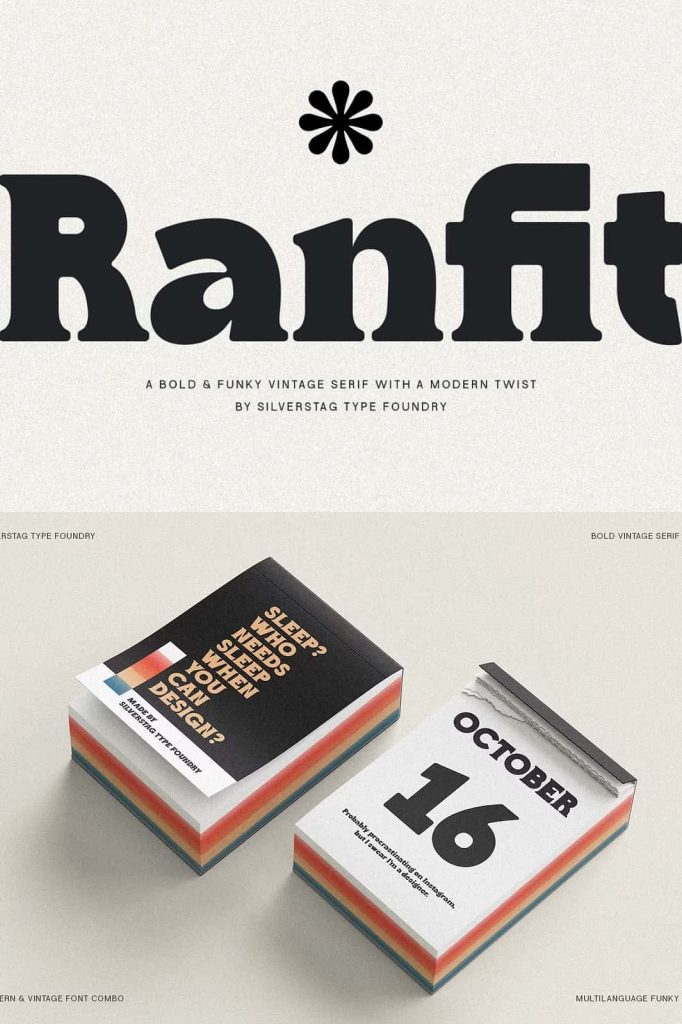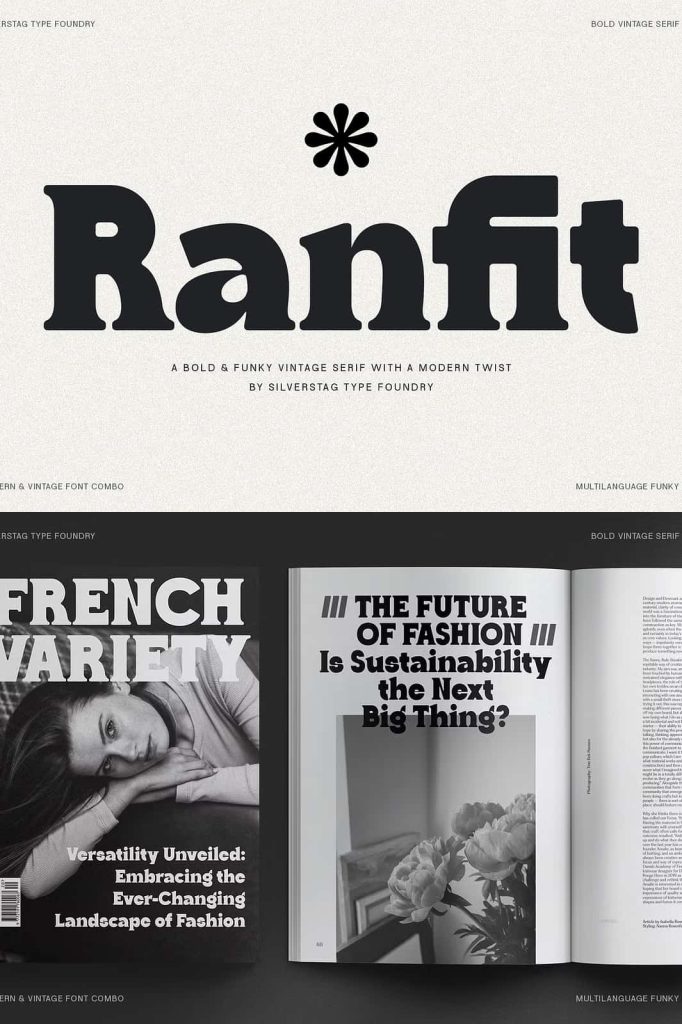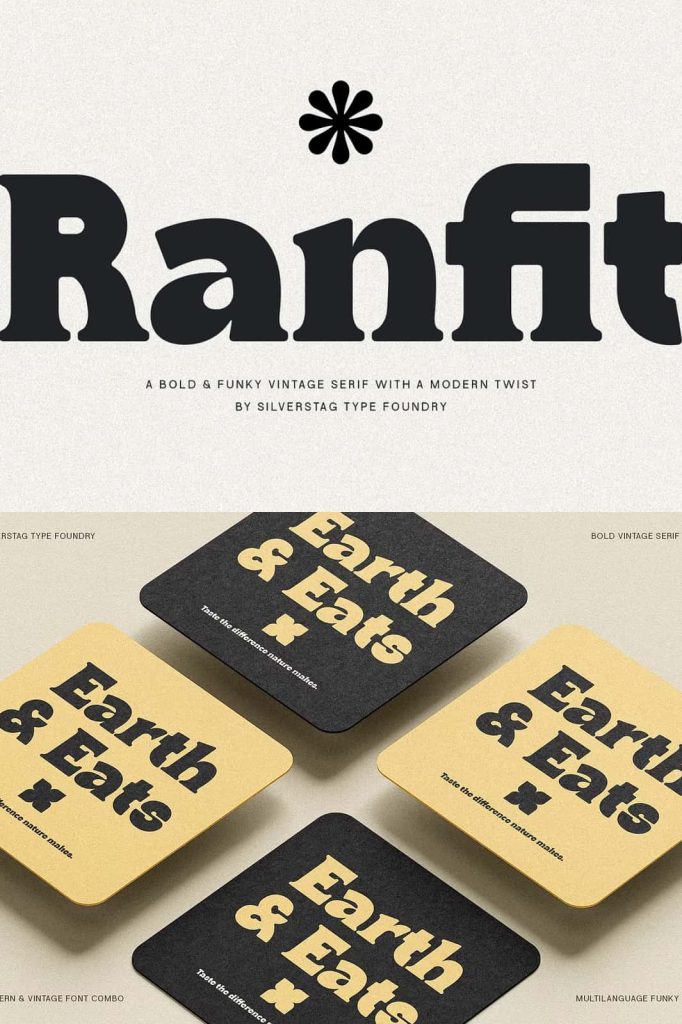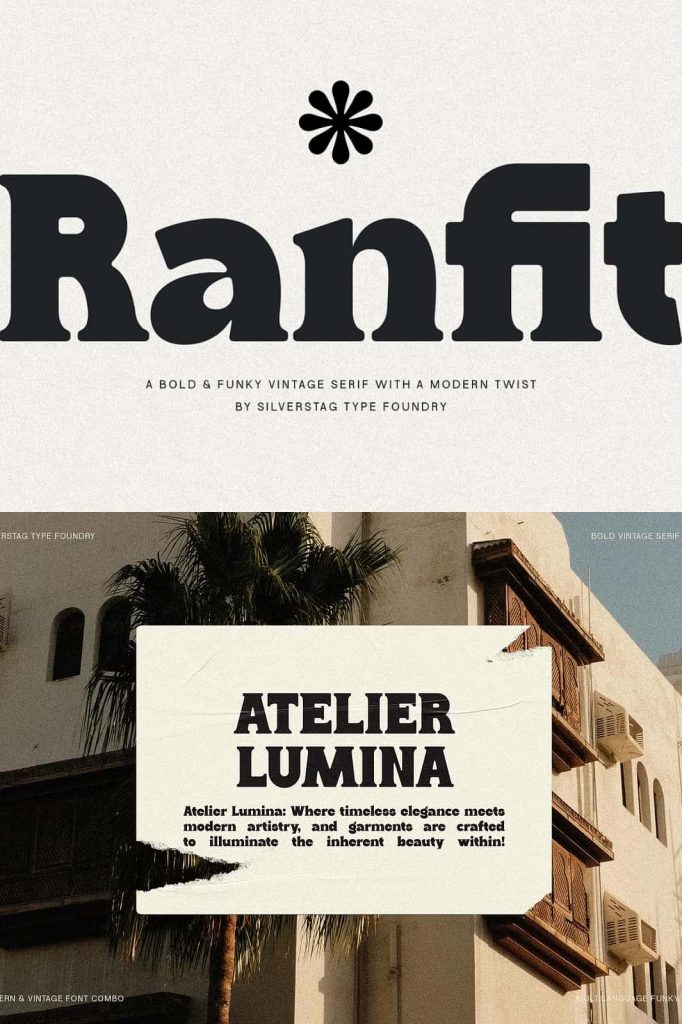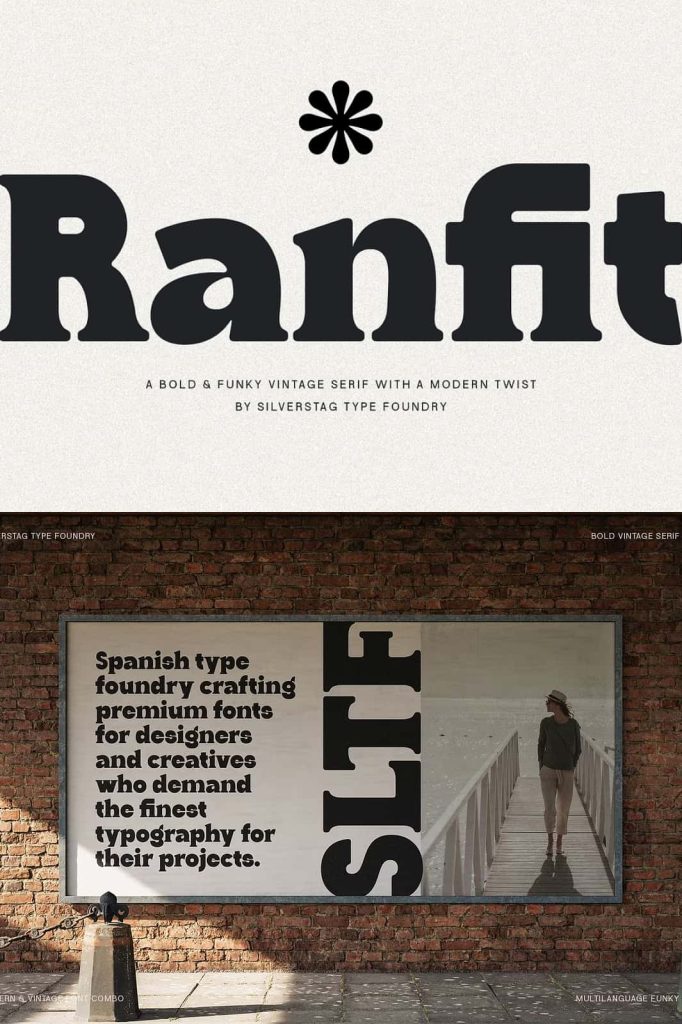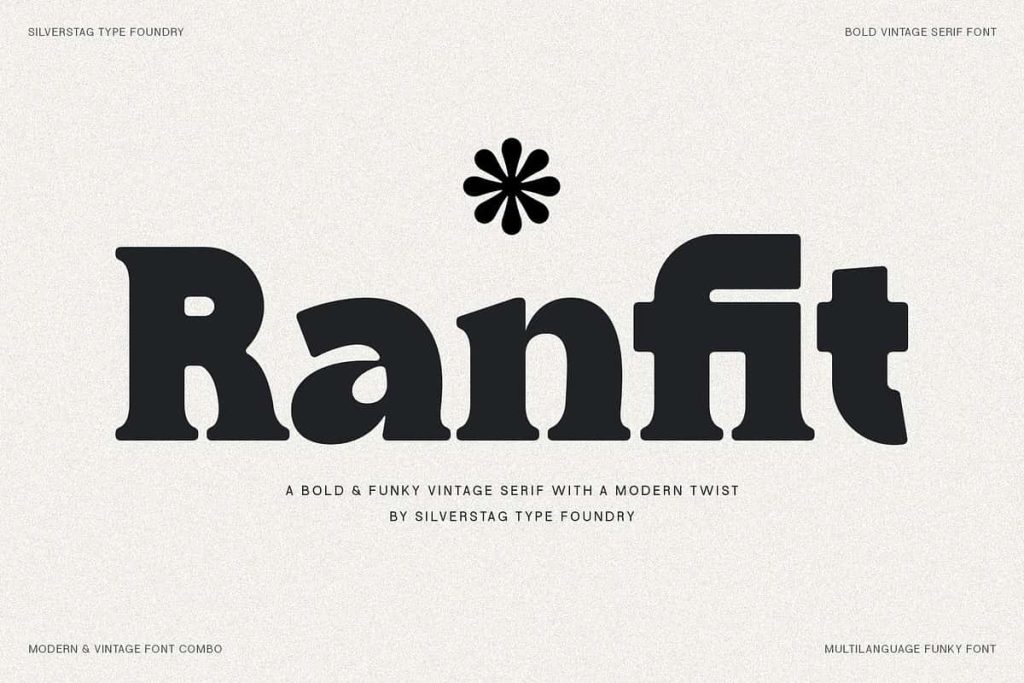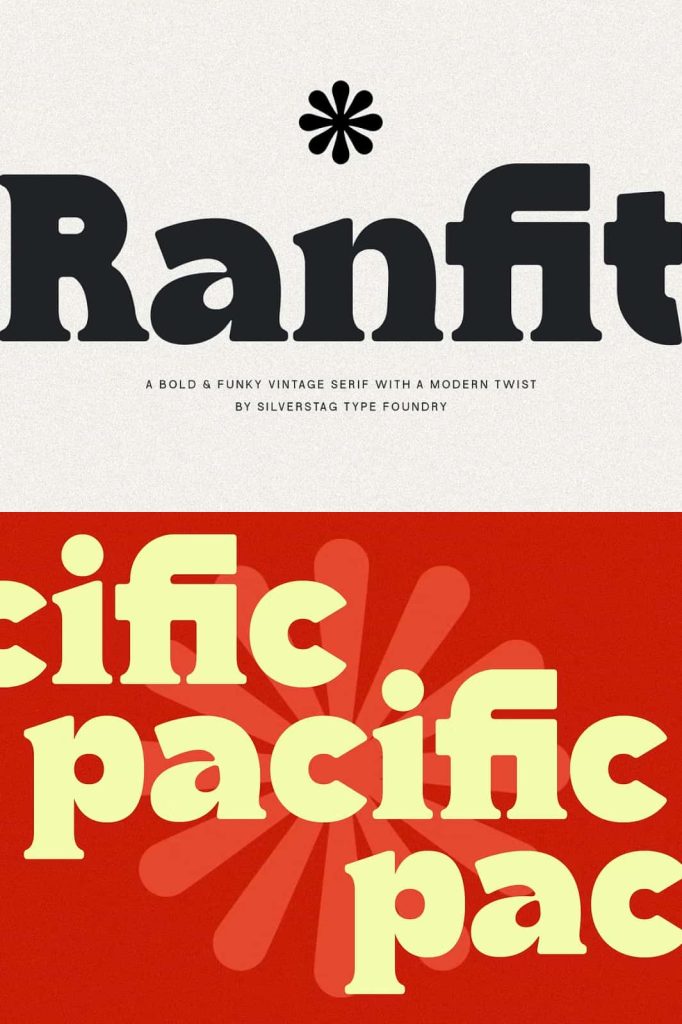
Introducing Ranfit, a typeface that seamlessly blends the charm of vintage typography with a contemporary edge. This bold and funky serif commands attention with its strong presence and unique personality, making it perfect for projects that demand a touch of nostalgia and a whole lot of style.